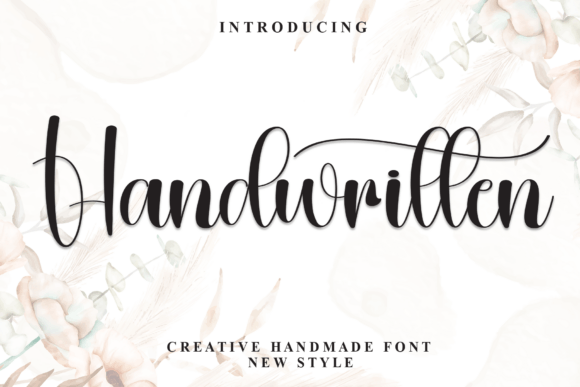
The Perfect Script: Unleashing the Beauty of Handwritten Font
Have you ever stared at a blank page, feeling the pressure to create something truly special, only to find inspiration in the imperfections of a handwritten note from a loved one? The way the words dance across the page, the unique flair of each letter – it’s a beauty that’s hard to replicate with digital tools. But what if you could capture that same essence in your designs?
Enter the Handwritten Font, a stunning script font that embodies elegance and creativity. With its smooth curves and natural charm, it’s perfect for adding a personal touch to wedding invitations, branding, and social media designs. Whether you’re a seasoned designer or a creative enthusiast, the Handwritten Font offers a valuable tool for bringing warmth and timelessness to your projects.
Key Features of Handwritten Font
- Unique Characteristics: The Handwritten Font features a distinctive, cursive script with varying line widths, giving it a personal and expressive feel.
- Style Options: The Handwritten Font comes in a range of styles, including Regular, Italic, Bold, and Bold Italic, allowing for versatility in design applications.
Designer Review: Handwritten Font
Overall, I think the Handwritten Font is a beautiful addition to any design project. ✨ The subtle imperfections and varied letterforms give it a unique, personal feel that can really make your content stand out.
I particularly love the way the font handles ligatures and word spacing. ✨ The way the letters seem to flow together creates a natural, effortless feel that’s perfect for body copy. The font also comes with a wide range of weights and styles, making it easy to find the perfect fit for your project.
- ⚠️ The font may not be suitable for headlines or titles, as the letterforms can be quite irregular and difficult to read at large sizes.
- ⚠️ Some users may find the font’s imperfections distracting, especially if they’re used to more traditional, clean fonts.
Overall, I think the Handwritten Font is a great choice for designers who want to add some personality and whimsy to their projects. While it may not be suitable for every situation, it’s a beautiful and unique font that can really make your content stand out.
Practical Application Guide for Handwritten Font
Tips for Getting the Most Out of Handwritten Font
To get the most out of handwritten font, use it sparingly and strategically. Use it for headings, titles, and quotes to add a personal touch to your design. Avoid using it for large blocks of text as it can be difficult to read.
Handwritten font is commonly used in invitations, greeting cards, and social media graphics. It’s also used in digital products, such as e-books and online courses, to add a personal touch and create a sense of connection with the audience.